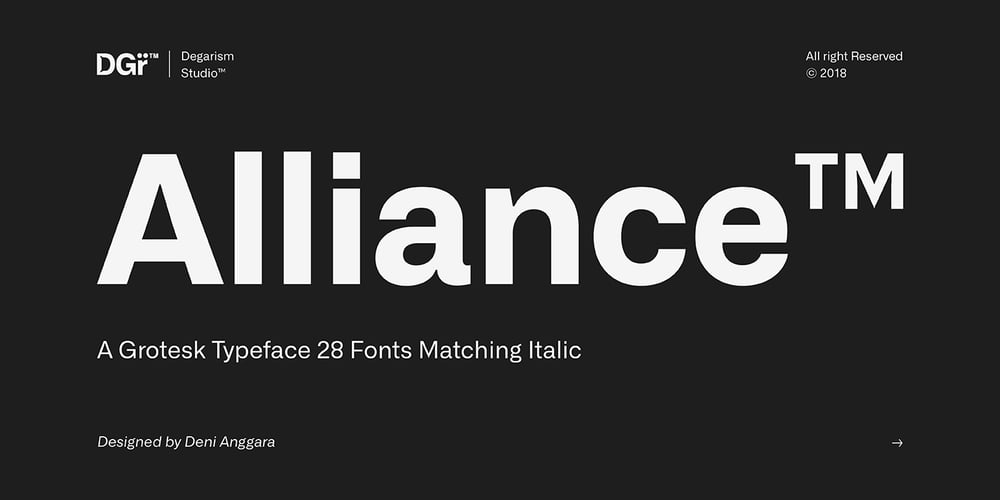
Alliance Font Family was designed by Deni Anggara and published by Degarism Studio. Alliance contains 28 styles and family package options. Alliance Update to version 2.0Alliance™ 28 weights, 14 uprights and matching italics. Each typeface contains over 592 glyphs with extensive Western, Central and Eastern European language support. ALLIANCE NO.1 Inspired by Industrial-era types from the end of the 19th century. Attempts to follow the best traditions of Grotesk typefaces. Features monolinear strokes and a good amount of contrast between the stroke thickness of each weight. With its distinctive inktraps, subtle in light versions and more visible in the black ones, Alliance No.1 was developed with unique glyphs to offer maximum flexibility. An airy metric aids good legibility in short texts. ALLIANCE NO.2 Alliance No.2 is a Display typeface. Developed from the original font family for use in large sizes. Based on the combination of contrasting shapes. This is a set useful for branding and advertising. Symbols for public areas, environment, transportation, digital and urban life. OPENTYPE FEATURES Including tabular figures, alternate characters, ligatures, fractions, case-sensitive forms, superscripts, subscripts etc.